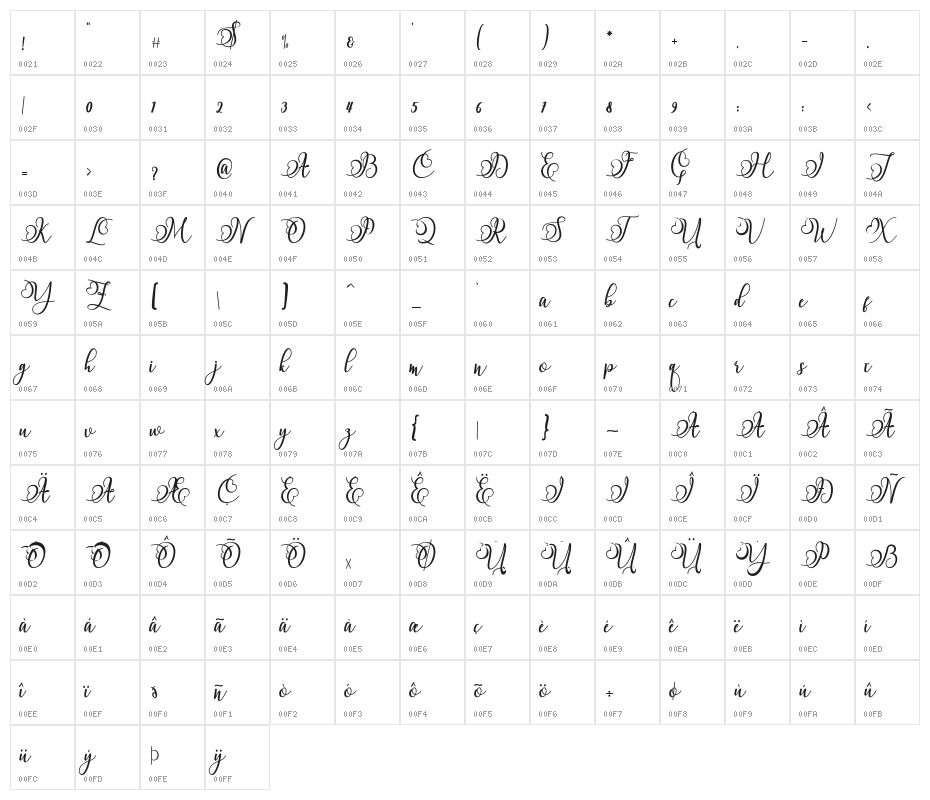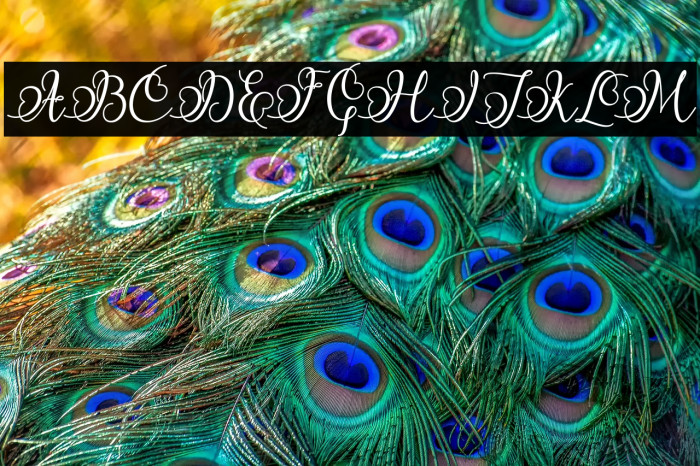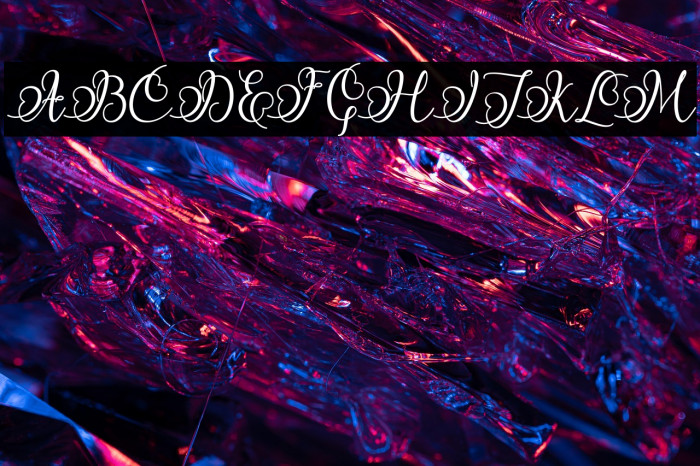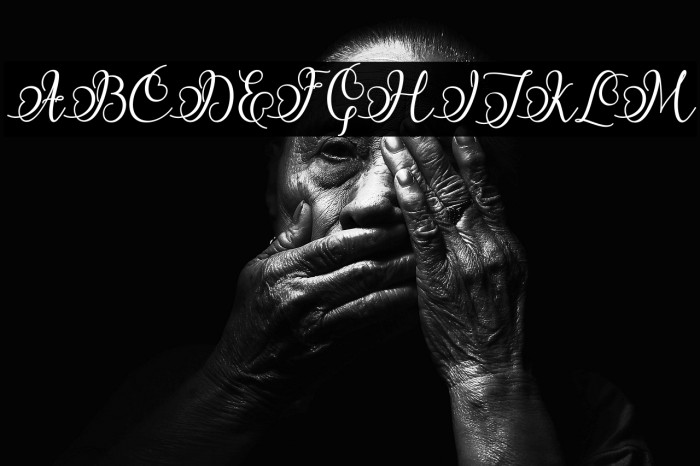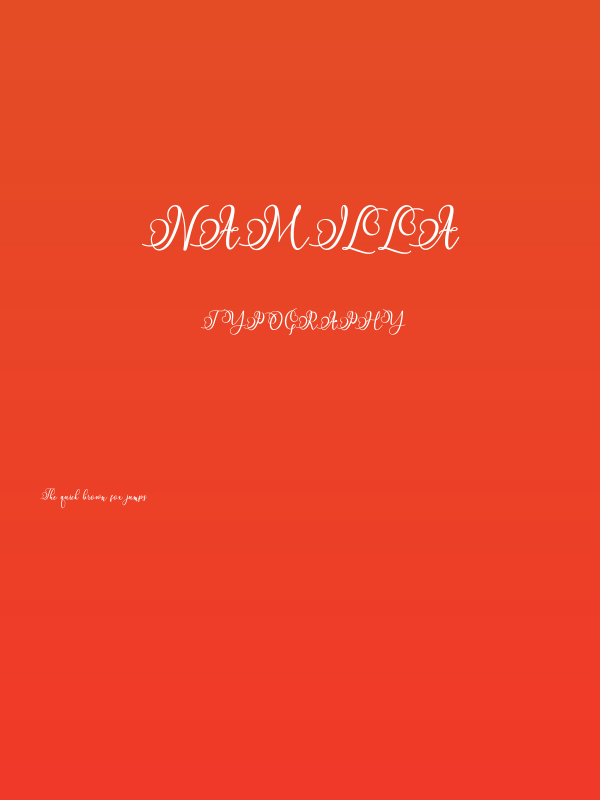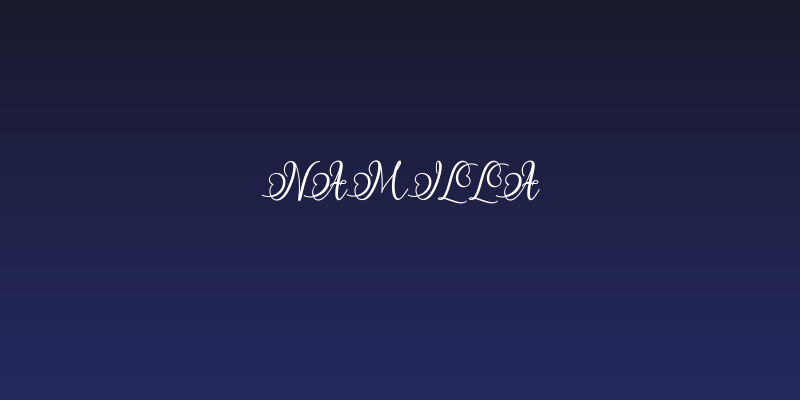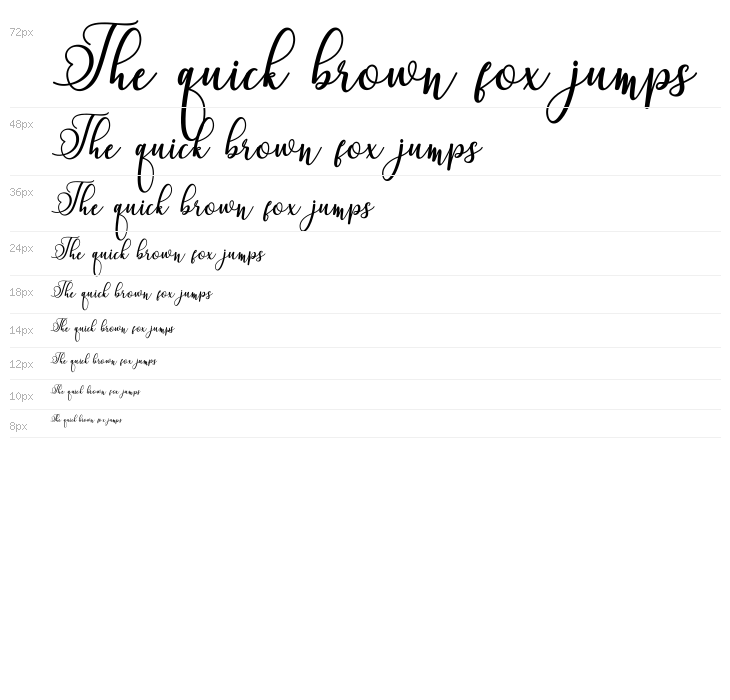
Namilla Font
Namilla Description
This elegant script font features a flowing, cursive style with intricate loops and flourishes that give it a sophisticated and artistic appearance. The uppercase letters are particularly ornate, with each character exhibiting unique swirls and embellishments. The lowercase letters maintain a consistent, smooth flow, making them highly readable despite their decorative nature. Numbers and special characters are designed to complement the overall aesthetic, ensuring a cohesive look across all text elements. This font exudes a sense of elegance and grace, making it ideal for projects that require a touch of refinement.